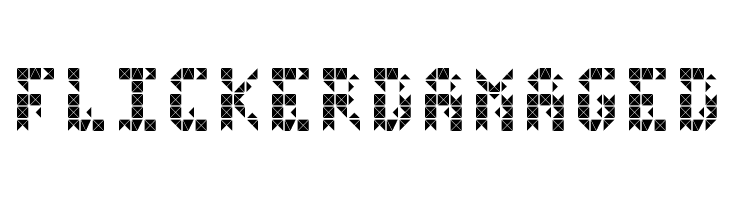
( surotype - Adil Budianto - www.surotype.com )
A dynamic and elegant script font with a modern twist.
( 04 - www.04.jp.org )
A bold, pixelated font with a retro digital aesthetic.
( Andrew Bulhak - dev.null.org/fonts/ )
A geometric, mosaic-style font with a modern and energetic appearance.
( Andrew Bulhak - dev.null.org/fonts/ )
A bold, geometric font with a mosaic-like pattern.
( Andrew Bulhak - dev.null.org/fonts/ )
A bold, geometric font with a mosaic-like appearance.
( Andrew Bulhak - dev.null.org/fonts/ )
A bold, geometric font with a mosaic pattern, ideal for decorative use.
( Andrew Lander - formerly at home.earthlink.net/~landerfam/fonts.html )
A futuristic, geometric font with a circuit-like design.
( FONTASTIC! - www.fontastic.co.uk )
A bold, distressed decorative font with a vintage, grunge aesthetic.
( Gregoryfonts - www.geocities.com/soho/coffeehouse/9609/fonts/fonts.html )
A bold, classic serif font with sharp serifs and medium contrast.
( Gulash - www.czcionki.com/gulash.html )
A bold, dynamic handwritten font with a brush-like texture and artistic flair.